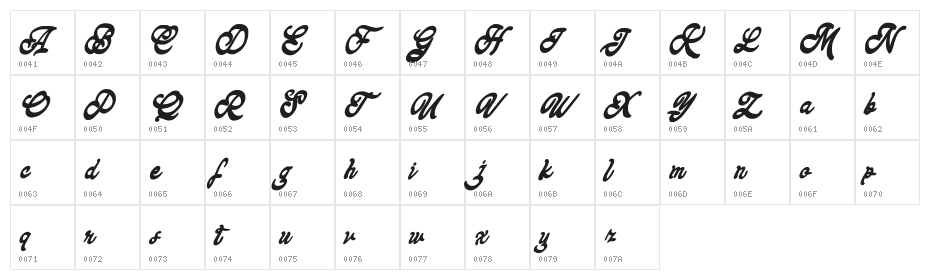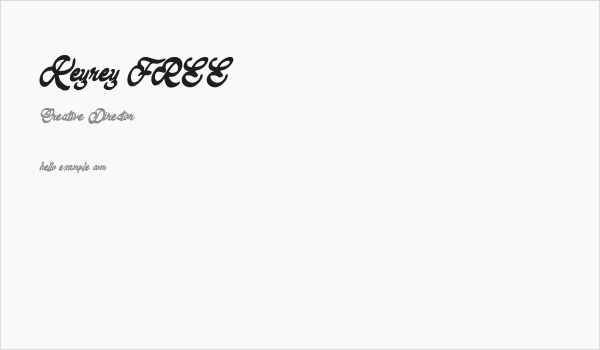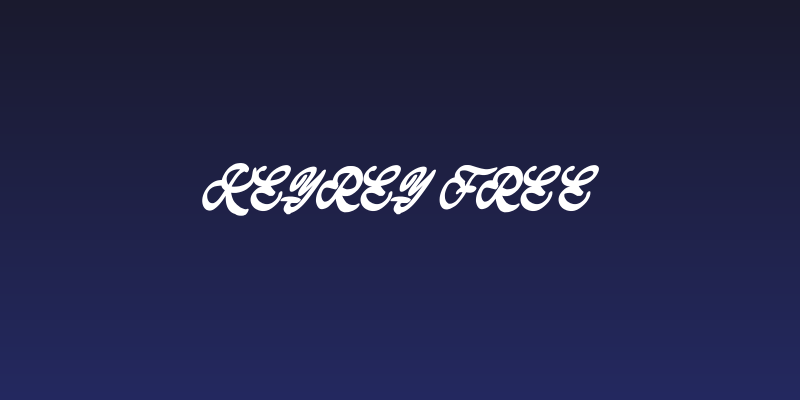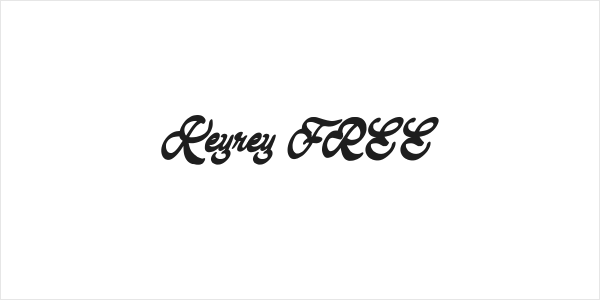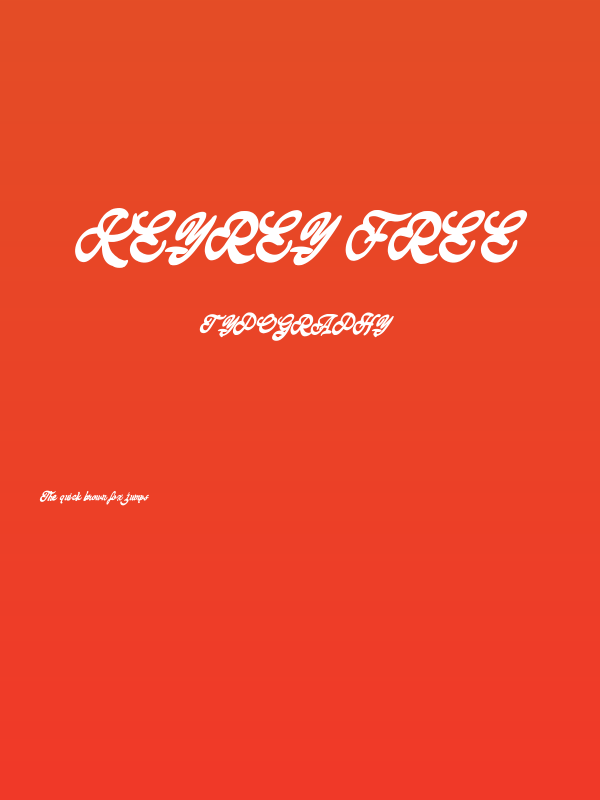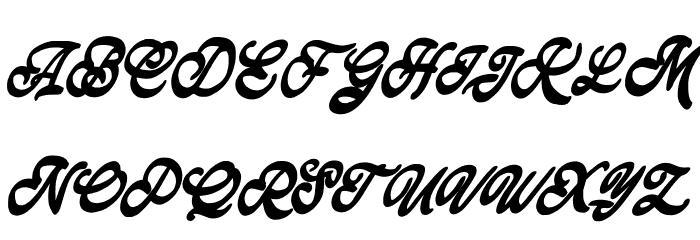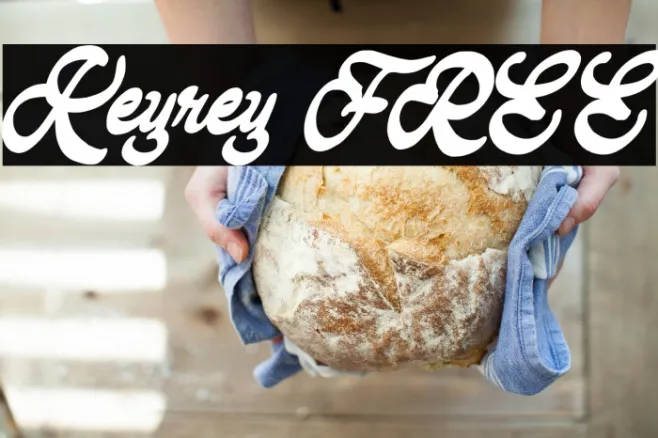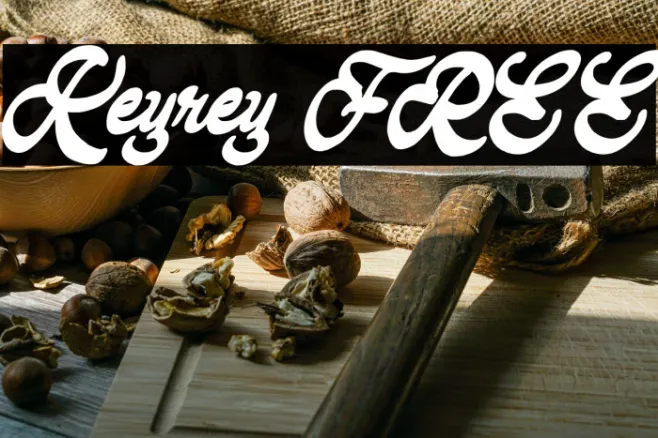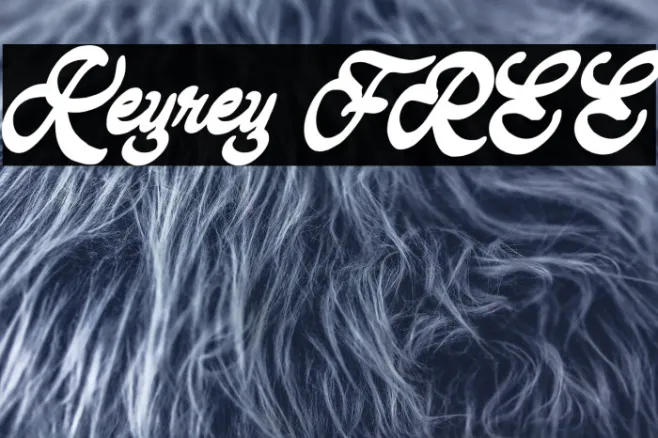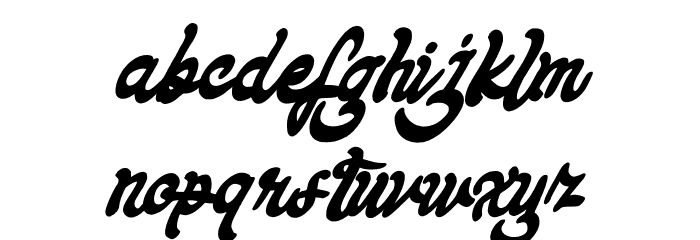
Keyrey FREE Font
Keyrey FREE Description
This font features a bold and flowing script style, characterized by its elegant and cursive letterforms. The uppercase letters are ornate, with sweeping curves and flourishes that give a sense of movement and grace. The lowercase letters maintain a consistent style, with smooth connections between characters, enhancing the font's fluidity. The overall appearance is both sophisticated and playful, making it suitable for designs that require a touch of elegance and creativity. The font's bold weight ensures strong visibility, while its intricate details add a decorative element.
| Proposed Projects | Ideal for wedding invitations, branding, greeting cards, and decorative headings. |